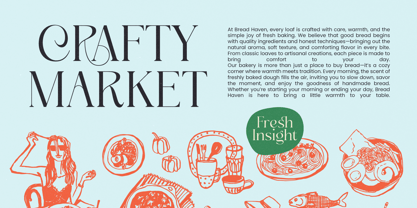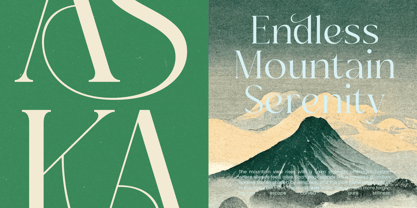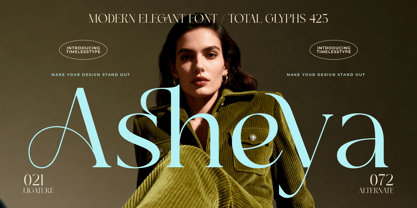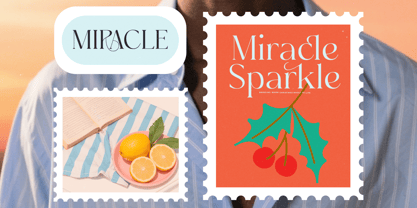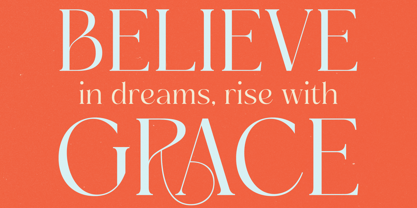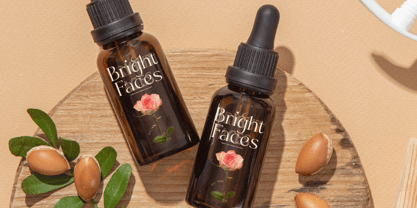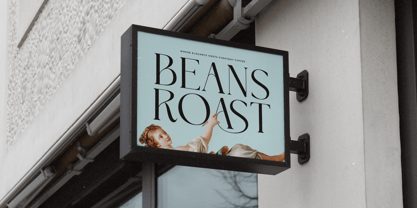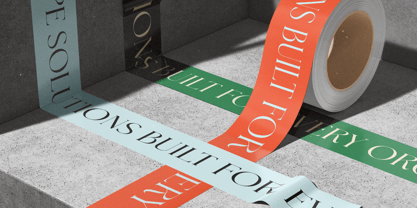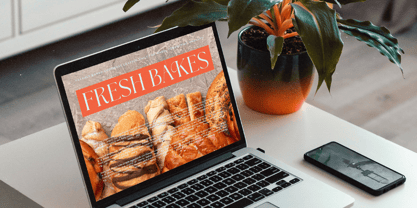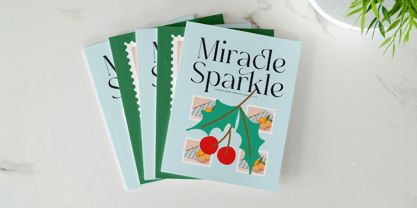
The Asheya Font Family was designed by Heru Utama Putra and published by Timelesstype Studio. Asheya contains 2 styles and family package options.
Asheya - Modern Elegant Font , from Timelesstype , Suitable for any projects such as: logos, branding projects, homeware designs, product packaging, mugs, quotes, posters, shopping bags, t-shirts, book covers, name card, invitation cards, greeting cards, label, photography, watermark, special events, and all your other luxury and beautiful projects that need a Luxury Serif taste.
Asheya